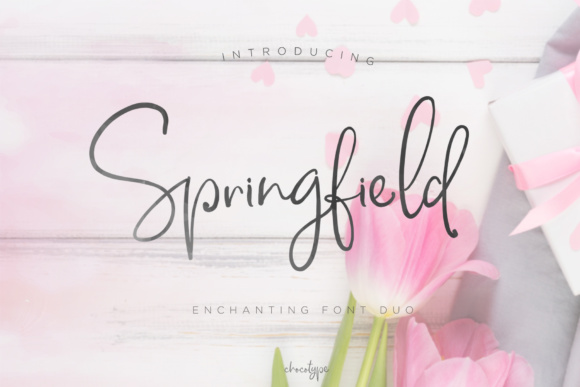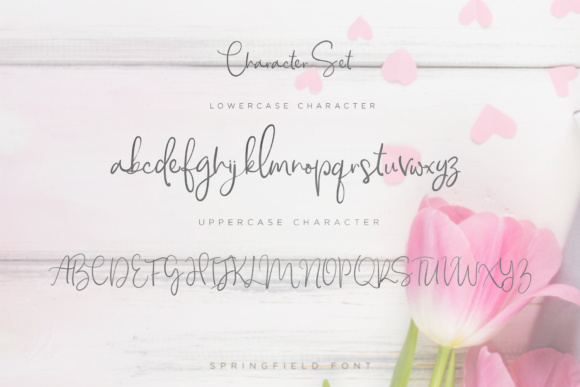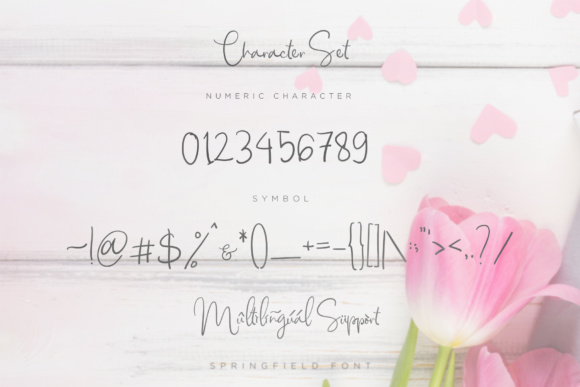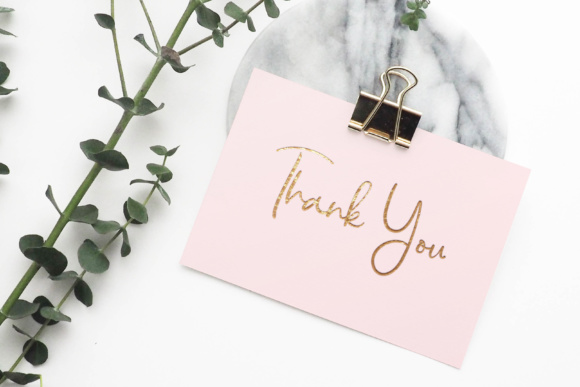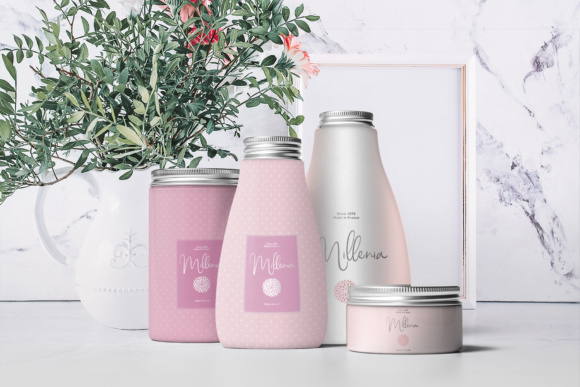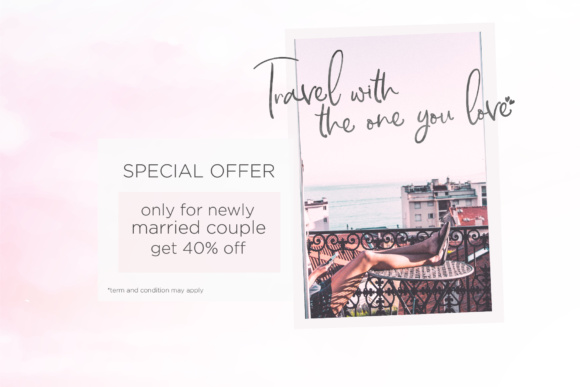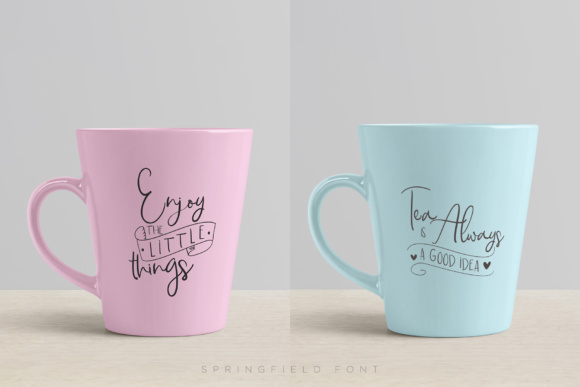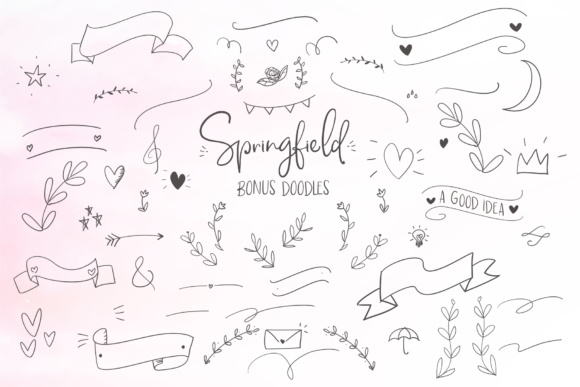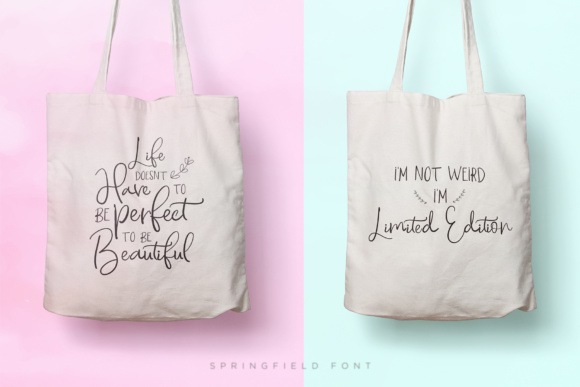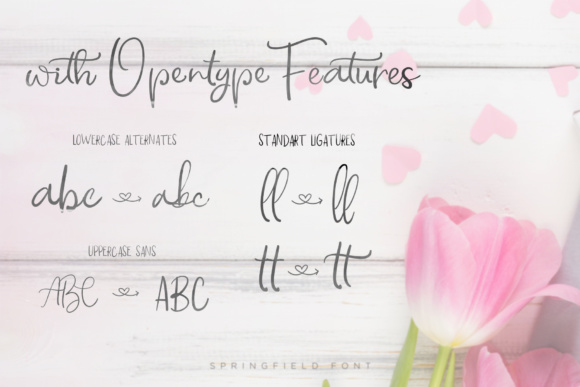
Springfield Font
About Springfield Font
Springfield is a handmade typeface with a cute character.
Springfield Script has a large variety of alternate characters, allowing you to make each word completely unique.